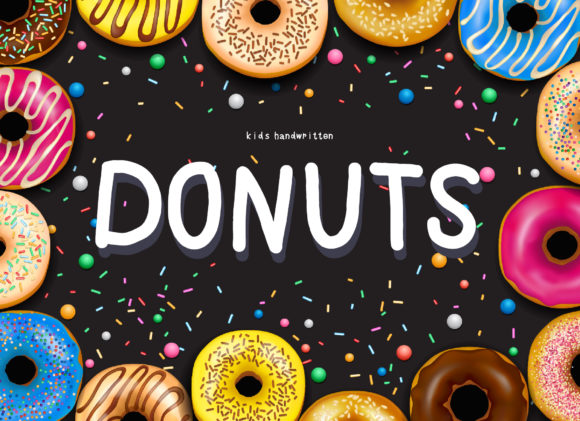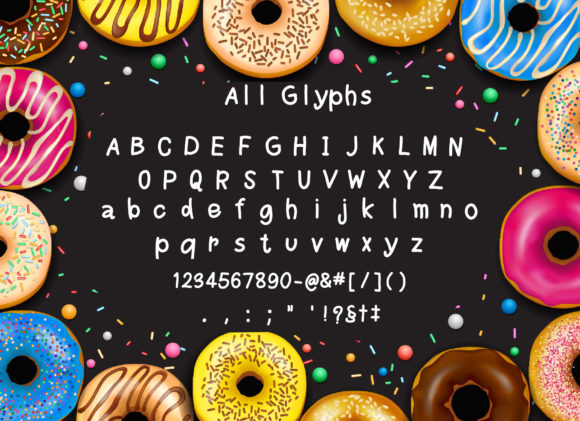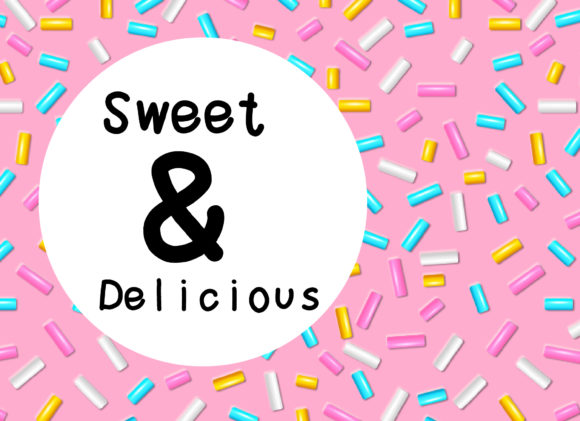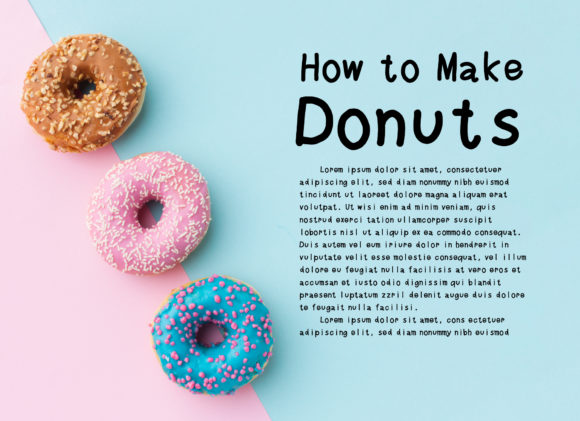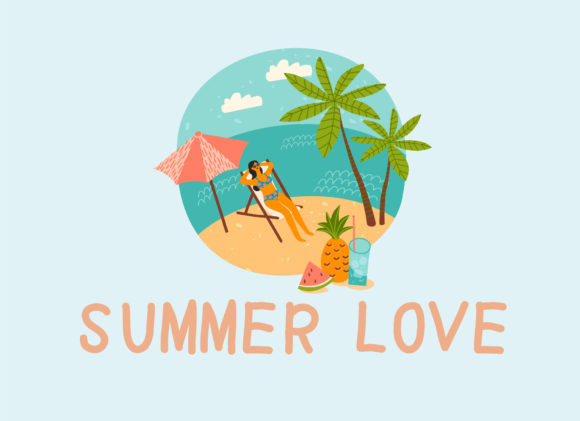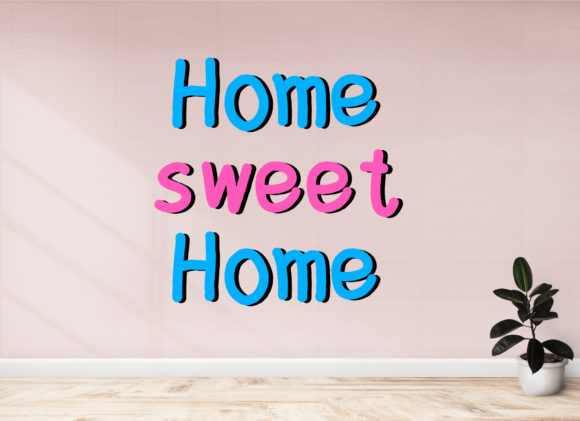
Donuts Font
About Donuts Font
Donuts is a sweet and friendly handwritten font. Its natural and unique style makes it incredibly fitting to a large pool of designs. The only limit is your imagination!